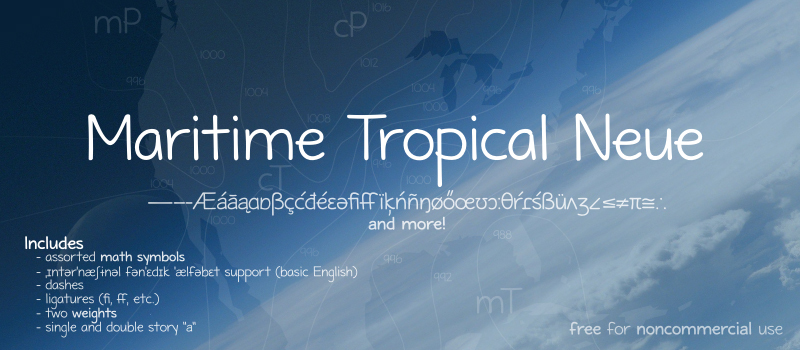
Maritime Tropical Neue
Maritime Tropical Neue, a captivating script font crafted by letterpunch, exudes a harmonious blend of elegance and playfulness. Its flowing, organic strokes evoke a sense of coastal charm, lending an effortless sophistication to any design.
The font's distinctive flourishes and subtle calligraphic touches add a touch of artistry, making it an ideal choice for branding, packaging, and editorial projects. Its versatility allows it to seamlessly transition from formal invitations to casual event materials, ensuring a cohesive visual identity.
Maritime Tropical Neue's versatility lends itself to a wide range of applications, from luxury hotel logos to clothing labels and personalized stationery. Its ability to convey both refinement and approachability makes it a compelling choice for businesses and individuals seeking to create a memorable and visually captivating impression.
The entire Maritime Tropical typeface has been reworked and expanded enough to warrant the release of a completely new font Maritime Tropical Neue. Better typography, same style.
This release introduces better kerning and spacing, better harmonization, redesigned characters, many math symbols and accented glyphs, English IPA support, dashes, and ligatures such as fi.
Update: Fixed a few remaining kerning issues (r-o), tweaked bold "a".